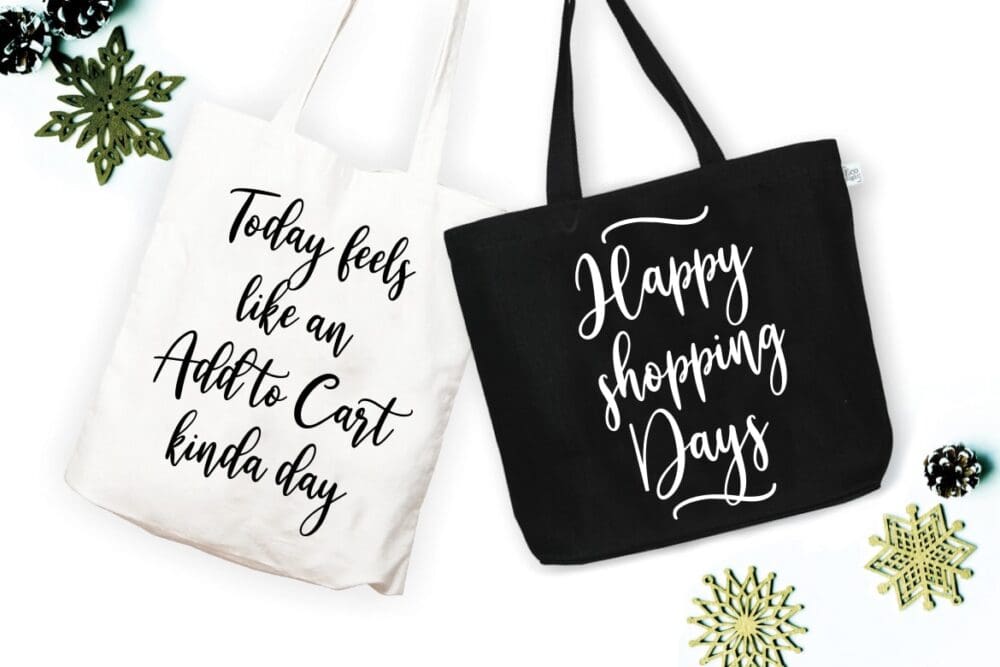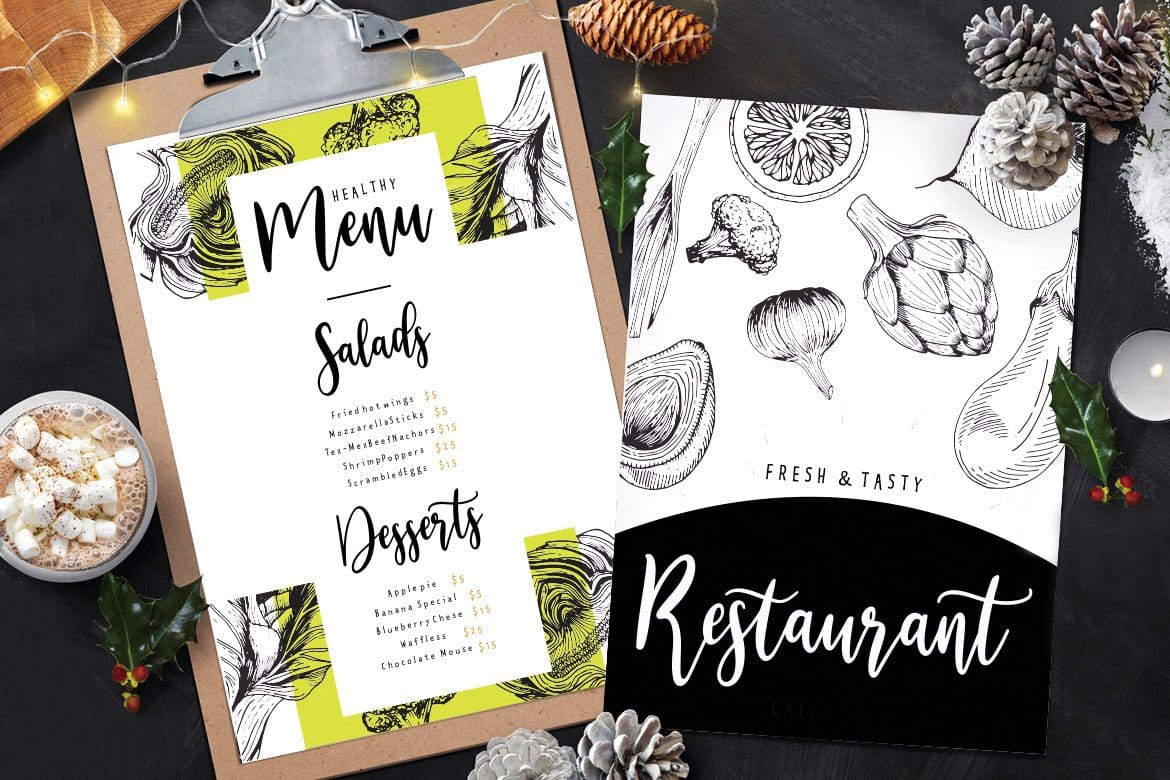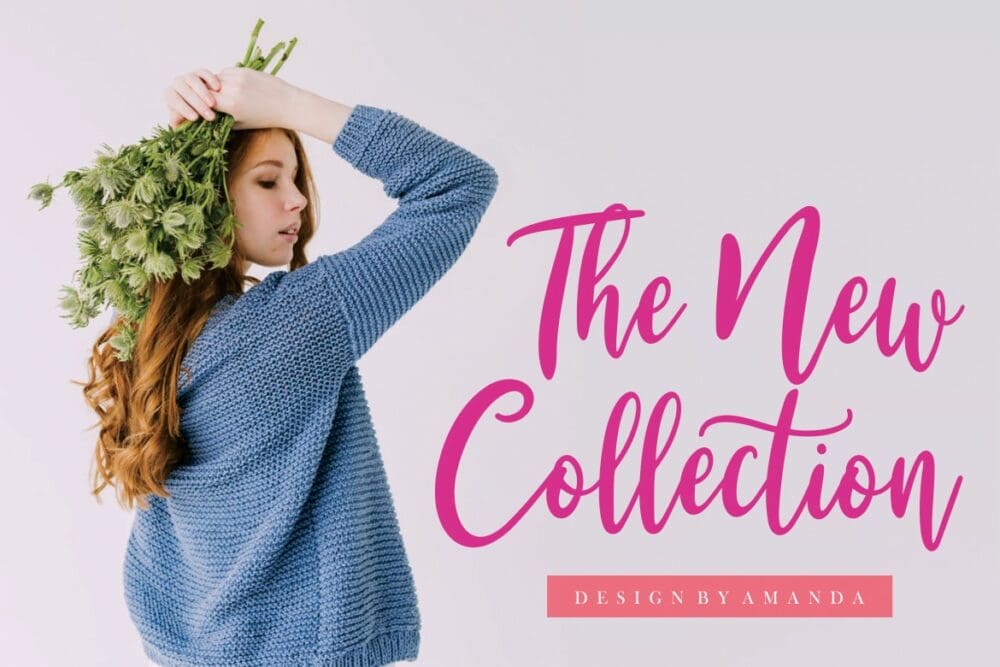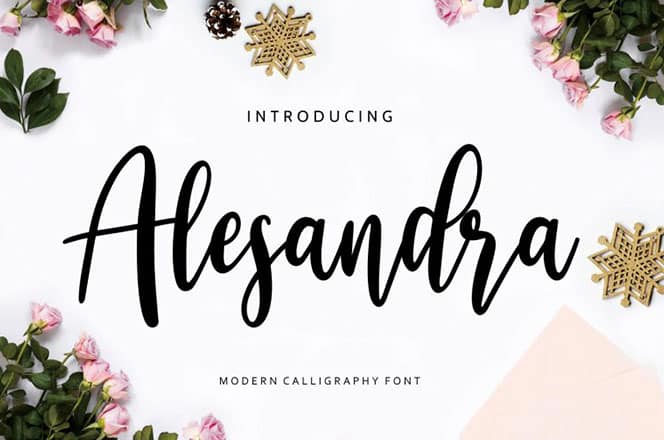
Alesandra Modern Calligraphy Font
Alesandra Modern Calligraphy Font is fresh & new font with a touch of elegance and modernity for any awesome projects. Alesandra is perfect for branding projects, logos, social media posts, invitations, stationery, and any projects that need handwriting taste.